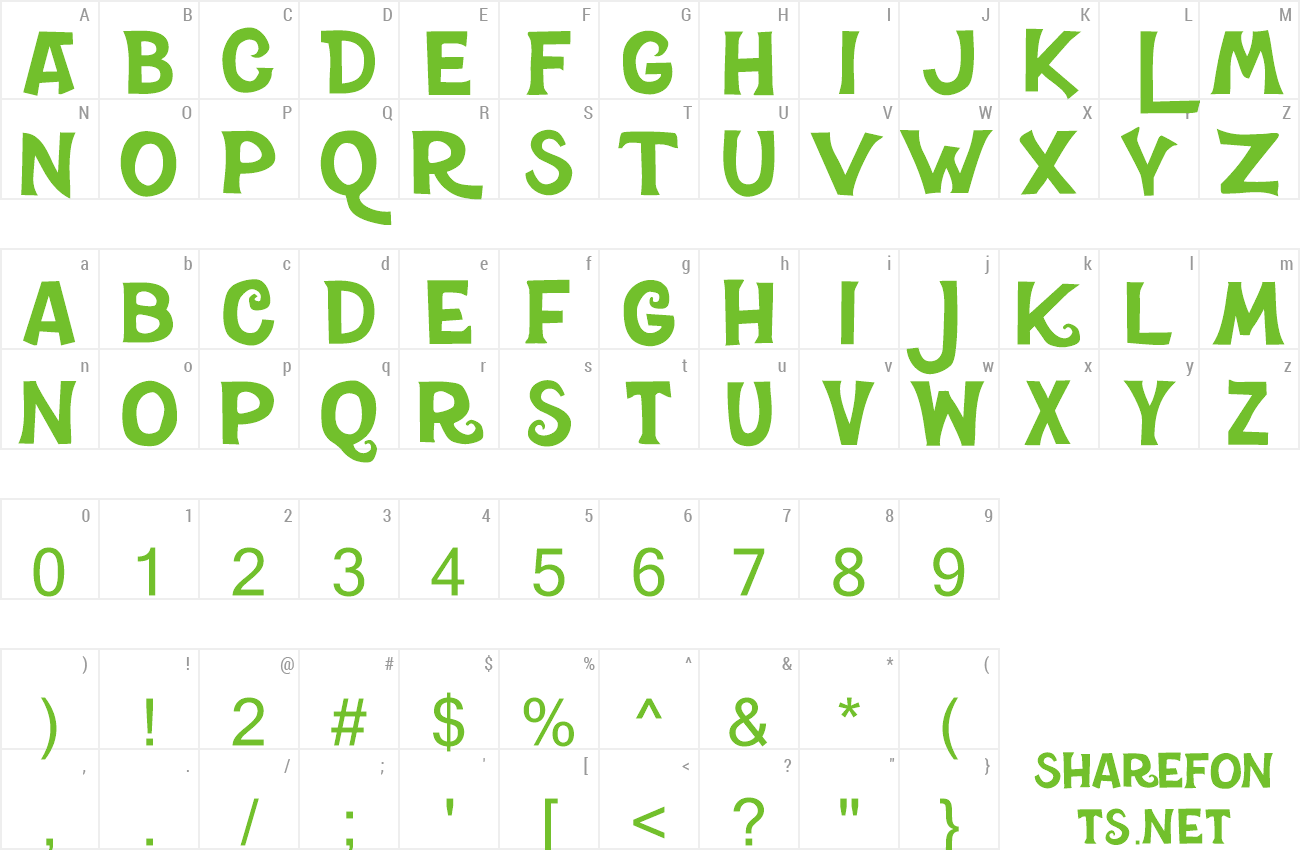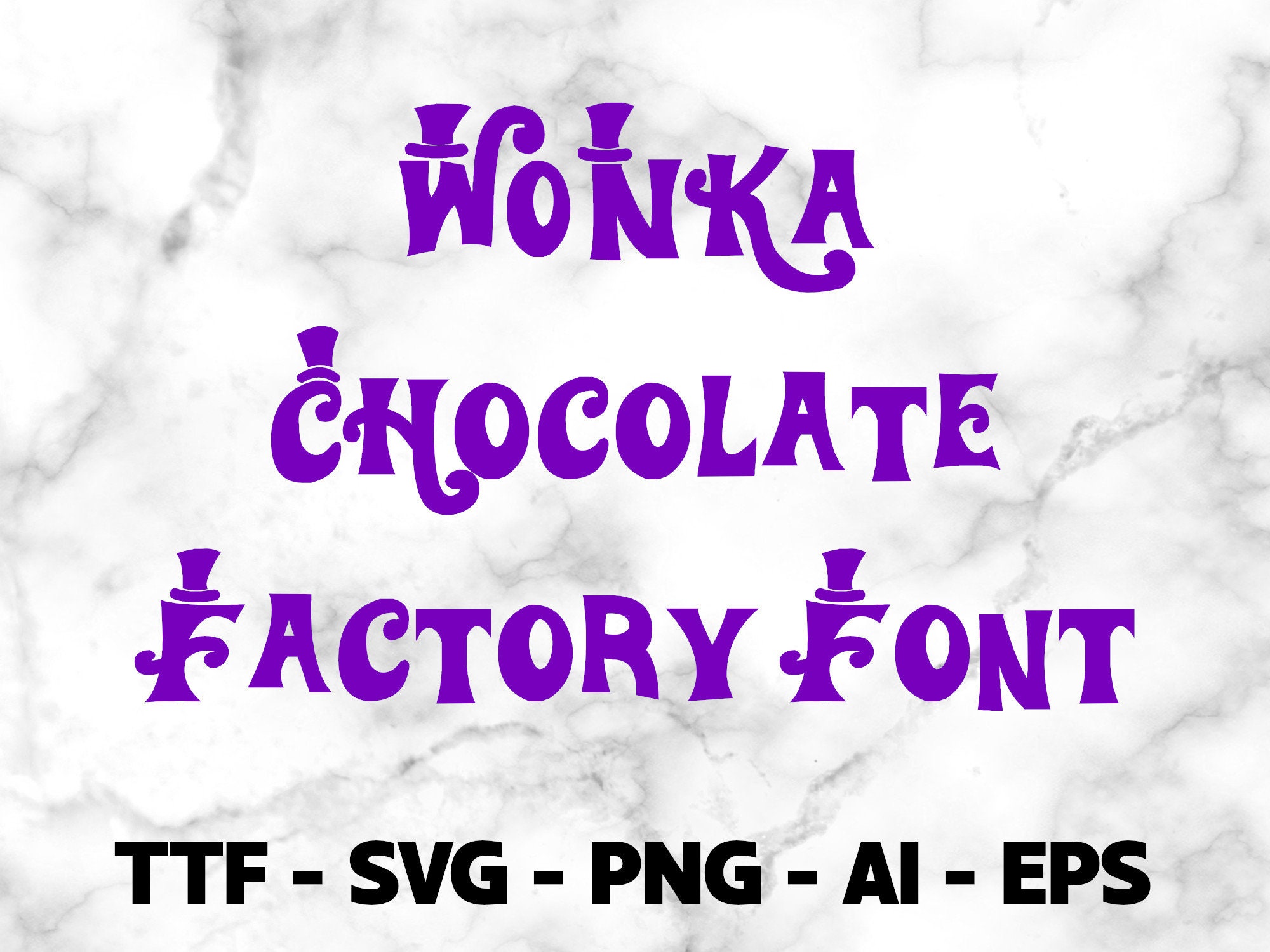
Charlie Chocolate Factory Font - The movie title in the poster was probably hand drawn, but a font named chocolate factory was created to imitate the “chocolate factory” part. Looking for charlie and the chocolate factory fonts? Click to find the best 1 free fonts in the charlie and the chocolate factory style.